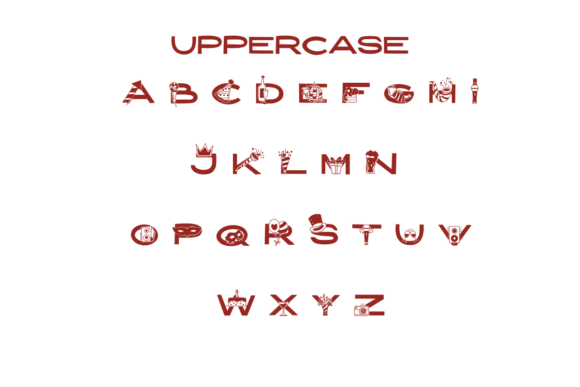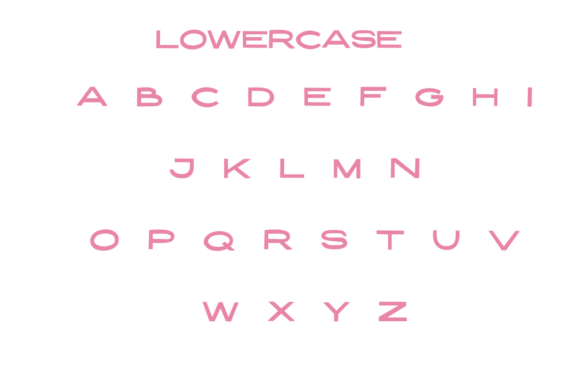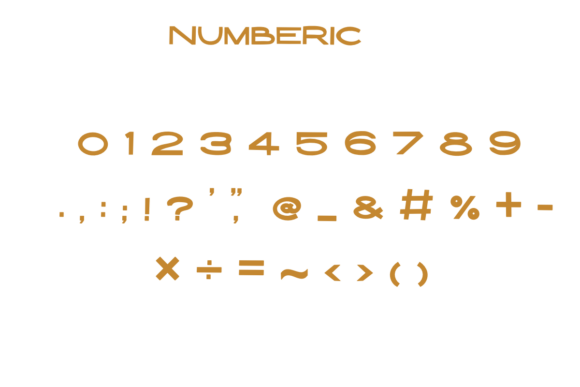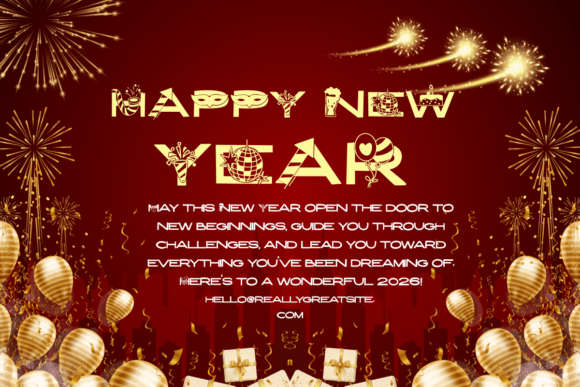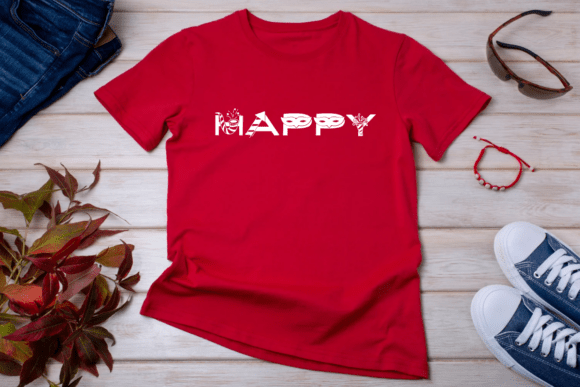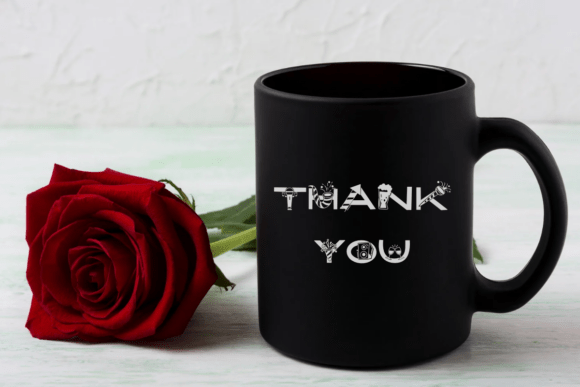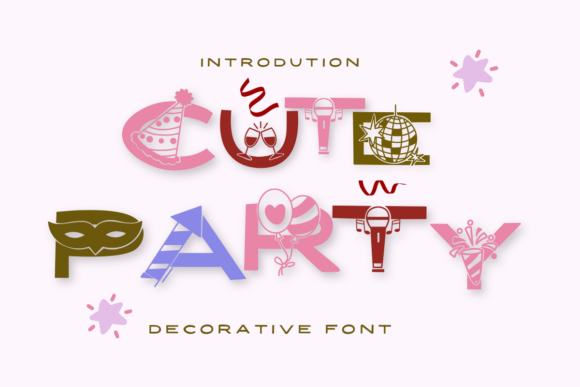
Cute Party Font: Elevate Your Designs with a Unique Decorative Style
Are you looking for a font that can add a touch of whimsy and fun to your designs? Look no further than the Cute Party font! This unique decorative font is perfect for designers and crafters who want to create eye-catching and engaging projects. In this article, we’ll explore the features and benefits of the Cute Party font, and show you how to incorporate it into your creative ideas.
What is Cute Party Font?
Cute Party font is a decorative font designed to add a playful and festive touch to your designs. Its unique and quirky style makes it perfect for projects that require a bit of personality and flair. Whether you’re creating invitations, party decorations, or social media graphics, the Cute Party font is sure to make your designs stand out.
Key Features of Cute Party Font
- Unique and Quirky Style: The Cute Party font features a one-of-a-kind design that’s sure to grab attention.
- Decorative and Playful: This font is perfect for adding a touch of whimsy and fun to your designs.
- Versatile: This font can be used for a wide range of projects, from party invitations to social media graphics.
Benefits of Using Cute Party Font
So why should you choose the Cute Party font for your designs? Here are just a few benefits:
- Adds Personality to Your Designs: The Cute Party font can help you create designs that reflect your personality and style.
- Perfect for Party-Themed Projects: This font is ideal for creating party invitations, decorations, and other themed projects.
- Easy to Read: Despite its decorative style, the Cute Party font is easy to read and understand.
- Great for Social Media Graphics: This font can help you create eye-catching social media graphics that grab attention.
Inspiration for Using Cute Party Font
Need some inspiration for using the Cute Party font? Here are a few ideas to get you started:
- Party Invitations: Create custom party invitations that set the tone for your celebration.
- Social Media Graphics: Use the Cute Party font to create eye-catching social media graphics that grab attention.
- DIY Crafts: Add a personal touch to your DIY crafts, such as party decorations or gift tags.
- Branding and Packaging: Use the Cute Party font to create unique and memorable branding and packaging designs.